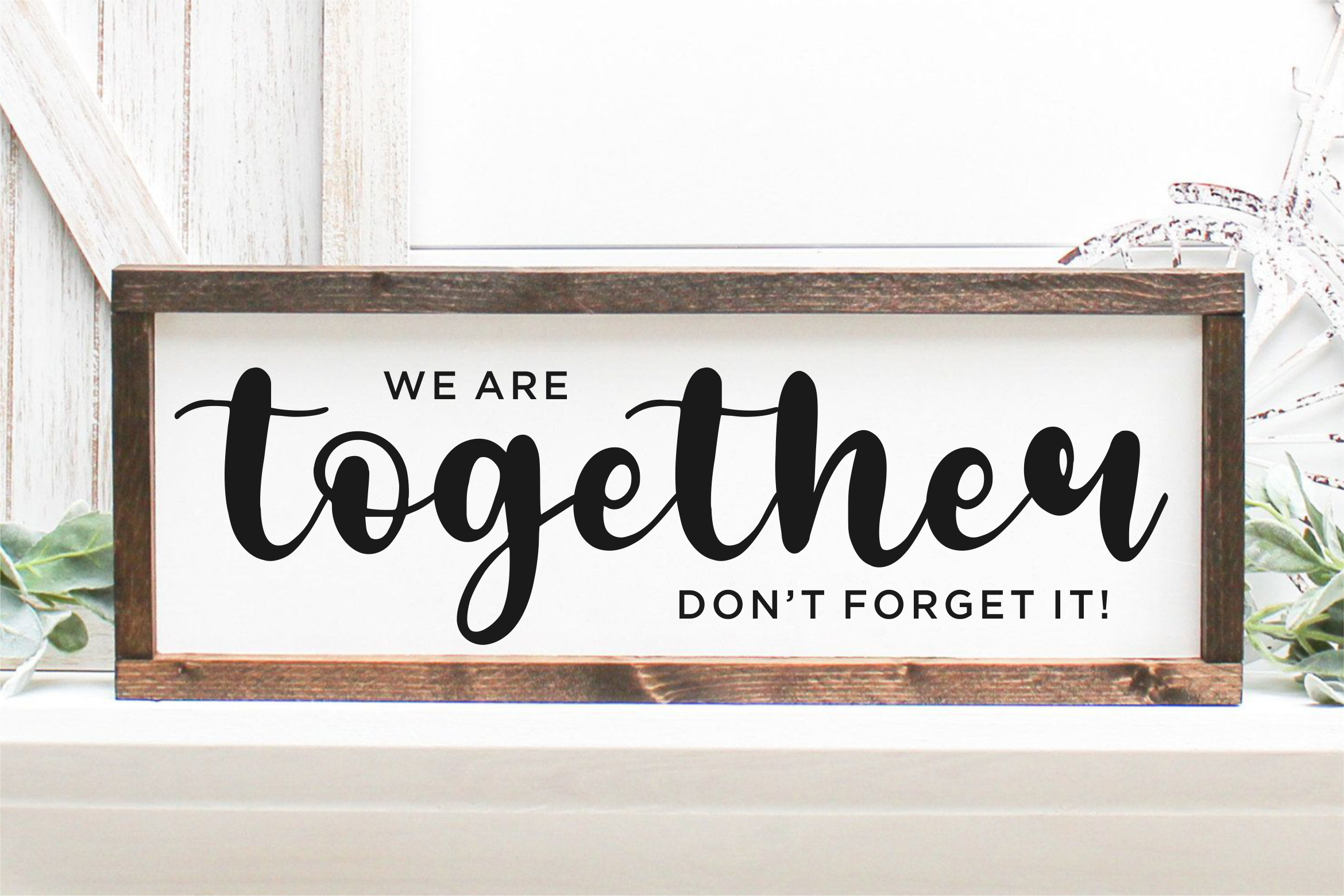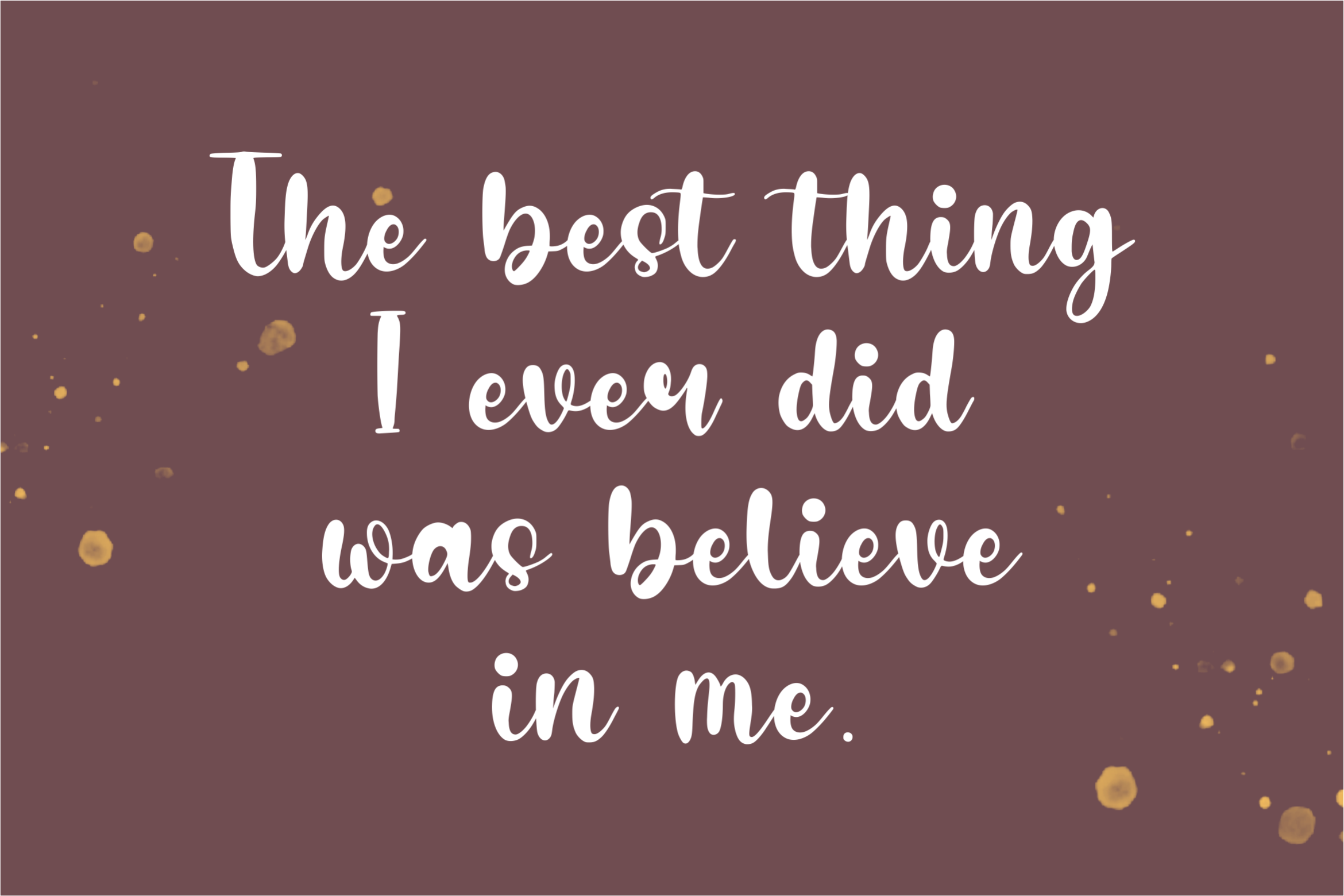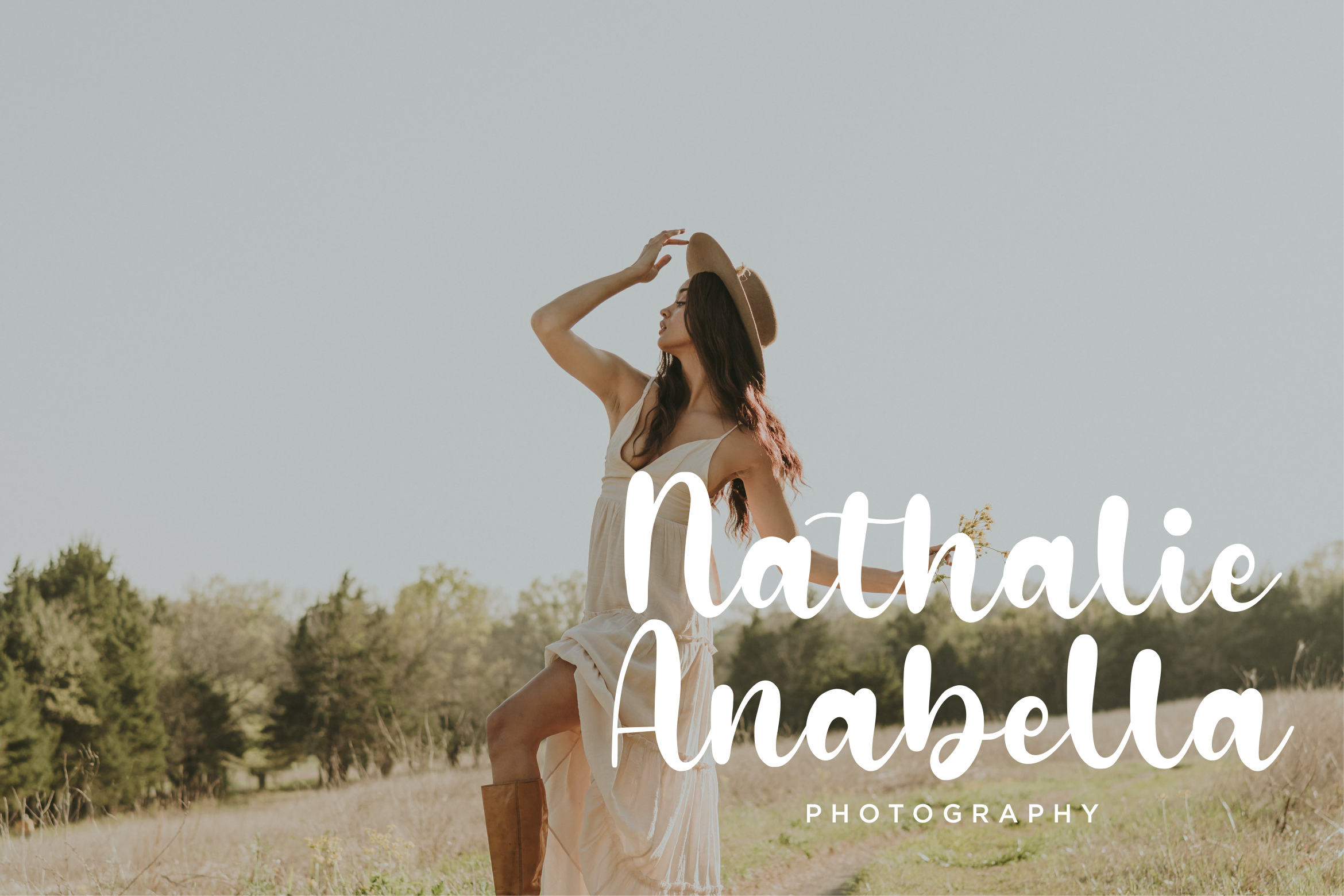
Bouncy Blanket Font
Bouncy Blanket Script Font
This is a clean and paint brushed handwritten font. It is perfect for product packaging, branding project, magazine covers, social media posts, wedding invitations, or just used to express words above the background.